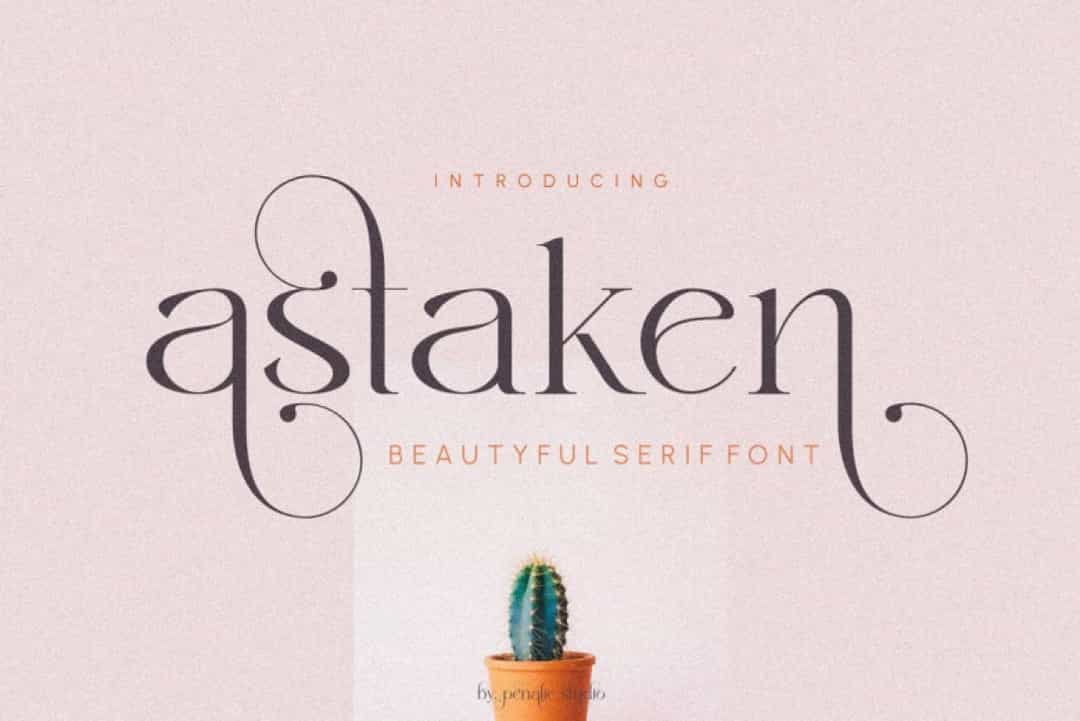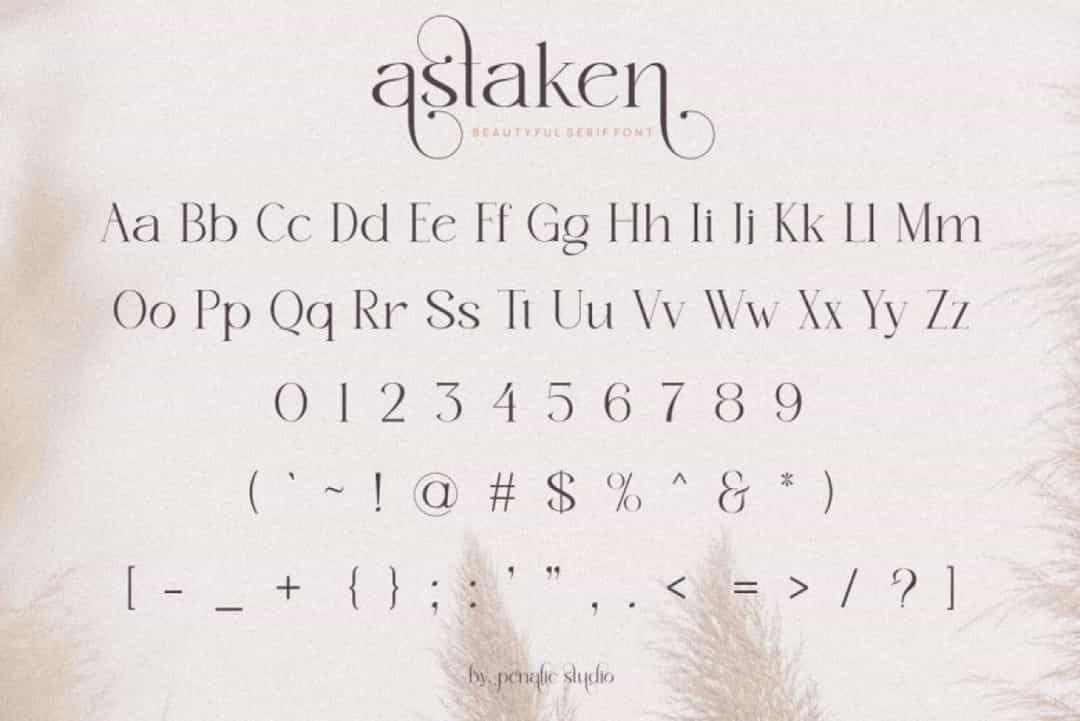
Astaken is a sophisticated and chic serif font, with an elegant, chic appearance. We absolutely adore its versatile style and use it often in creating stunning wedding invitations, stationary designs, Instagram posts and much more!